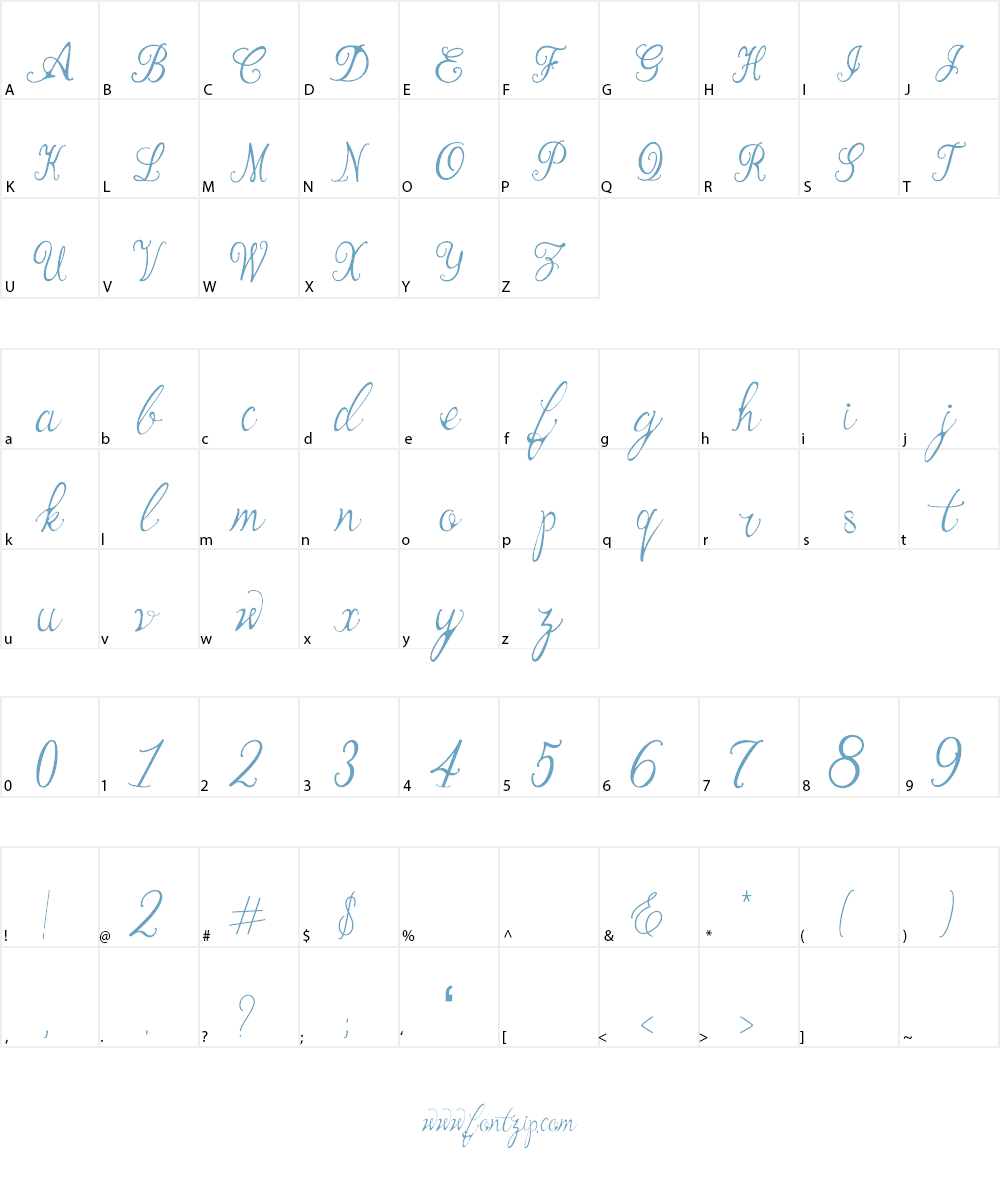
Hi everyone, this is my third font that I've create with all my heart. Manhattan Script Font is an authentic, unique, signature and stylish handwritten font with a natural and elegant caligraphy look. It can be used in a wide range of design projects and is easy to use.
Manhattan Script Font comes with uppercase, lowercase, standard punctuation, and numbers.
Manhattan Script Font has variety of unique handmade-look outcomes that can be combined together with a large range of designs.